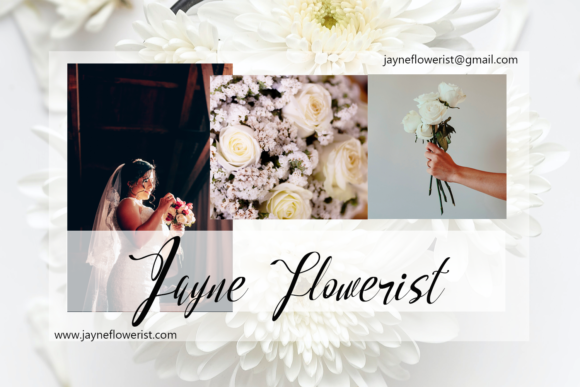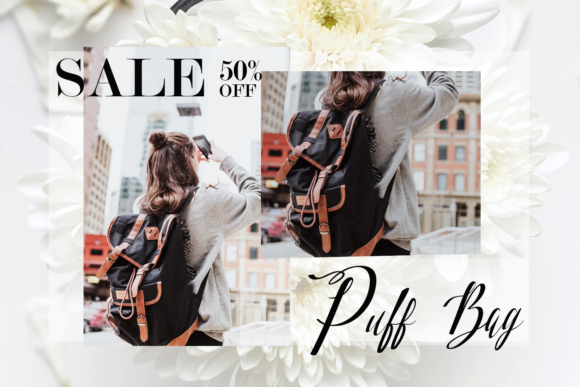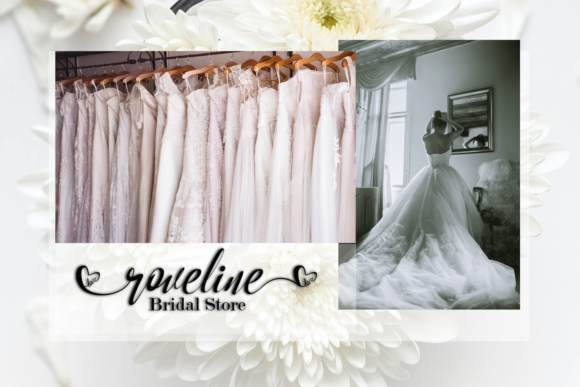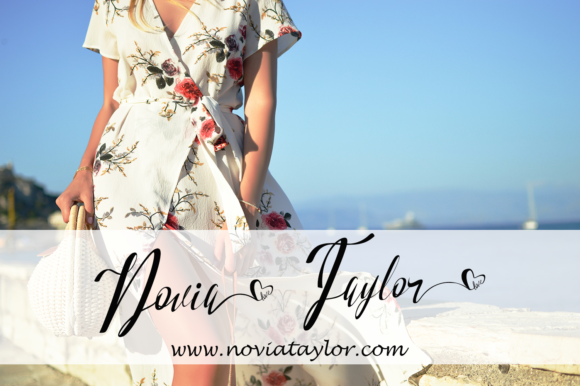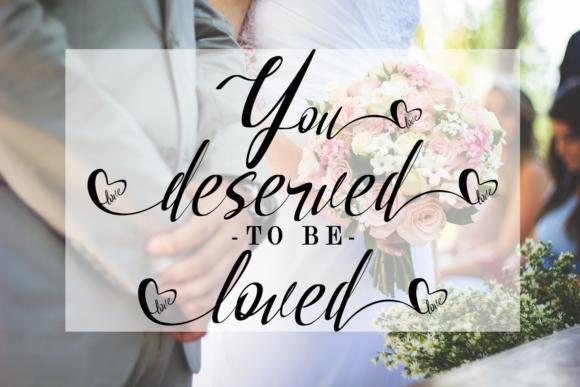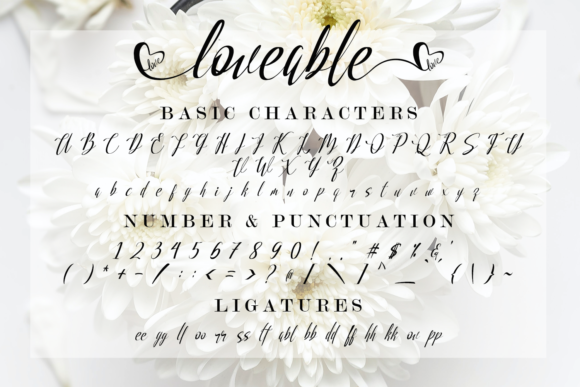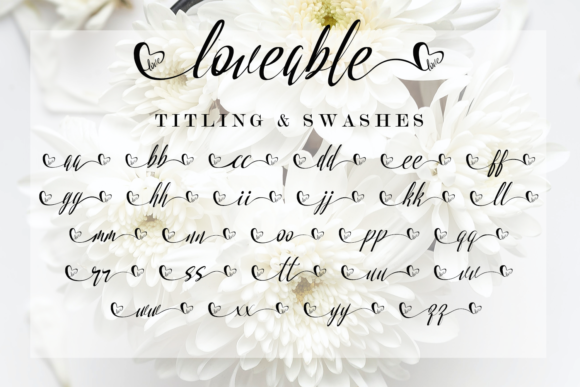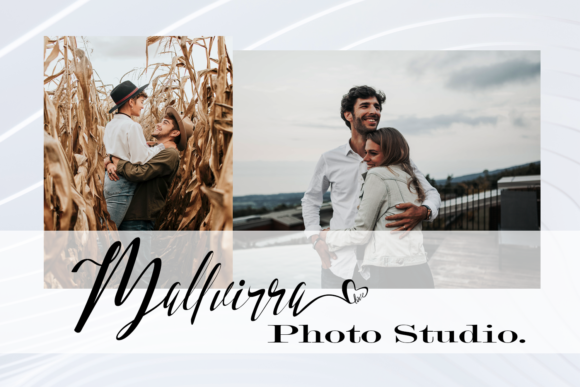
Loveable Font
About Loveable Font
Loveable is a font that exudes elegant beauty and flowing grace, making it a stunning choice for a wide range of design projects. Its elegant and flowing handwritten style enhances your creations, adding a touch of sophistication that captivates the eye.
With its stunning features, Loveable brings a sense of beauty and charm to your designs. Whether you’re working on wedding invitations, thank you cards, quotes, greeting cards, logos, business cards, or any other project, this font elevates each creation with its effortless allure.
Loveable’s handwritten essence adds a personal and authentic touch to your designs, making them feel refined and special. It’s like a gentle dance of pen strokes that infuses your creative ideas with a sense of elegance.
Incorporating Loveable into your designs allows you to explore a wide range of creative possibilities. Its varying baseline, smooth lines, gorgeous glyphs, and stunning alternates create a mesmerizing visual experience, adding an artistic flair that enhances the overall appeal of your designs.
Moreover, Loveable looks stunning on various materials and contexts, making it a versatile choice for different design needs. From elegant wedding invitations to heartfelt thank you cards, this font complements your projects beautifully.
Fall in love with Loveable’s elegance and flowing grace as it transforms your ideas into stunning designs that resonate with sophistication and allure.
In summary, Loveable is more than just a font; it’s an incredibly elegant companion that enhances your creative ideas. Embrace its beauty and notice how it elevates your projects to new levels. With Loveable, your designs become true expressions of grace and flowing beauty, leaving a lasting impact on all who encounter them. Let Loveable be the font that adds a touch of magic to your designs, creating a world of endless possibilities and capturing the hearts of your audience.